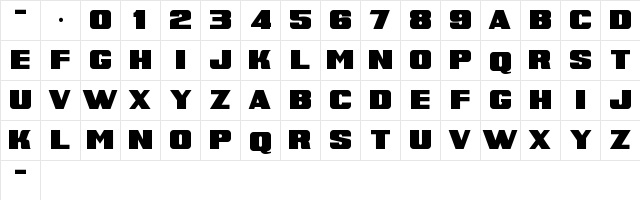
Super Retro M54 Regular
Design Context for Super Retro M54 Typeface
Super Retro M54 has the warm character of retro typography — evoking diners, record sleeves, and the golden age of print advertising.
Ideal for diner signage, record shop branding, 70s/80s-themed projects, and heritage product labels.
Font Pairing: Combine Super Retro M54 with a simple slab or neutral sans — period-accurate companions reinforce the vintage feel without competing for attention.
Pro Tip: Lean into Super Retro M54's period character by pairing it with aged paper textures, muted colour palettes, and vintage illustration styles.